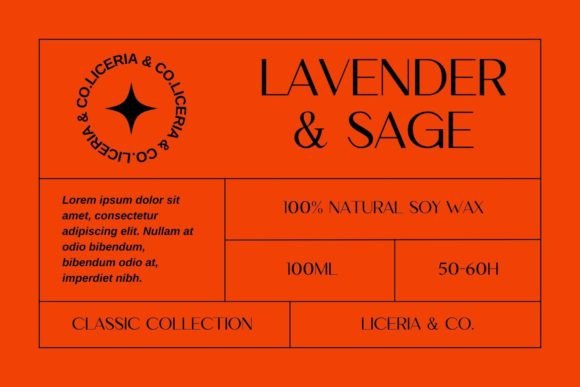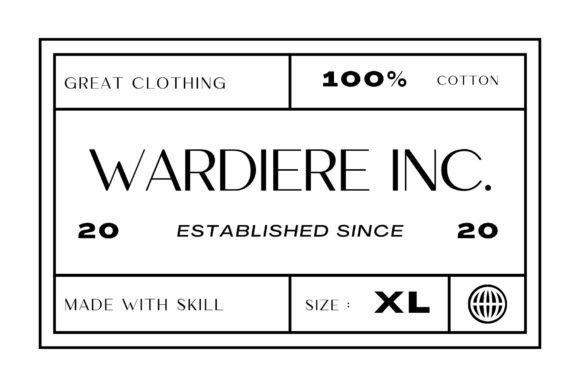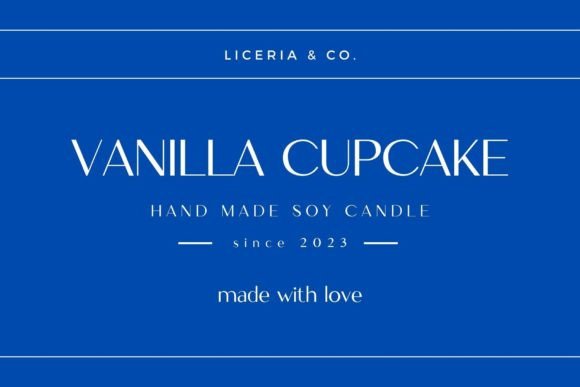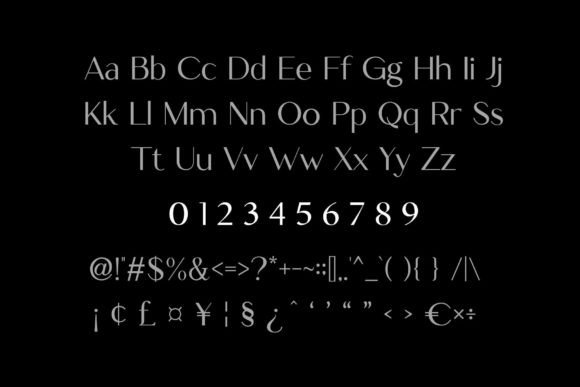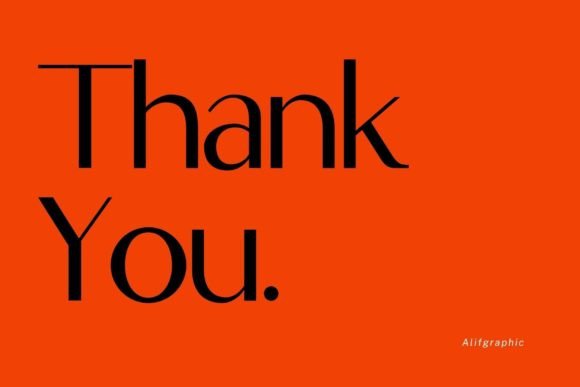
Introduction to Quenko Font
Have you ever found yourself staring at a blank canvas, waiting for the perfect font to bring your creative vision to life? For designers, this moment is all too familiar. It’s the moment when the entire project hangs in the balance, and the right typography can make all the difference.
| 📌 Product Name | Quenko Font |
| 👤 Author | Font Kingdom |
That’s where the Quenko Font comes in – a game-changing design resource that’s poised to revolutionize the way you approach your creative projects. With its exquisite balance of modernity and elegance, this high-quality font series is the perfect solution for designers looking to elevate their work to the next level.
What sets Quenko Font apart is its commitment to precision and flawless typographic expression. Each letter is meticulously crafted to provide a seamless experience, whether you’re working on a project with a transparent background or simply need a reliable design resource. And the best part? It’s available for free download, making it an invaluable asset for designers of all levels.
Key Features of Quenko Font
Honest Review: Quenko Font
As a designer, I’m always on the lookout for high-quality design resources to enhance my creative projects. Recently, I had the chance to work with the Quenko Font, and I must say it’s a great addition to my design arsenal.
Here’s what works well: ✨ The Quenko Font has a unique and modern aesthetic that makes it perfect for contemporary designs. Its clean lines and simple shapes make it easy to read, even on a transparent background. The font is also highly customizable, which is a huge plus for designers who want to add a personal touch to their work.
The Quenko Font is available for free download, making it an excellent resource for designers who are on a budget. However, I do have to mention a few limitations: ⚠️ The font is not as extensive as some other fonts I’ve worked with, which may limit its versatility. Additionally, some users may find the font’s modern style a bit too bold for certain designs.
Overall, I’m impressed with the Quenko Font and would definitely recommend it to designers who are looking for a high-quality, modern font to add to their design resource library. With its free download and transparent background capabilities, it’s a great choice for any creative project.
- Unique and modern aesthetic
- Perfect for contemporary designs
Quenko Font: A Free Design Resource for Creative Projects
Tips for Getting the Most Out of Quenko Font
For optimal results, use Quenko Font in conjunction with other high-quality design resources. Experiment with different font sizes, colors, and arrangements to create visually appealing compositions. Additionally, take advantage of the font’s transparent background to create unique and eye-catching designs.
Common Use Cases for Quenko Font
Quenko Font is ideal for a wide range of creative projects, including graphic design, digital art, and print media. Its versatility and high-quality design make it an excellent choice for designers looking to add a professional touch to their work.